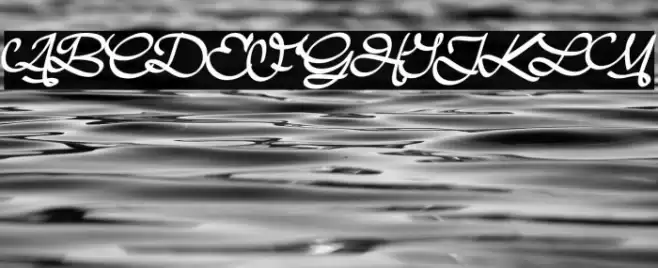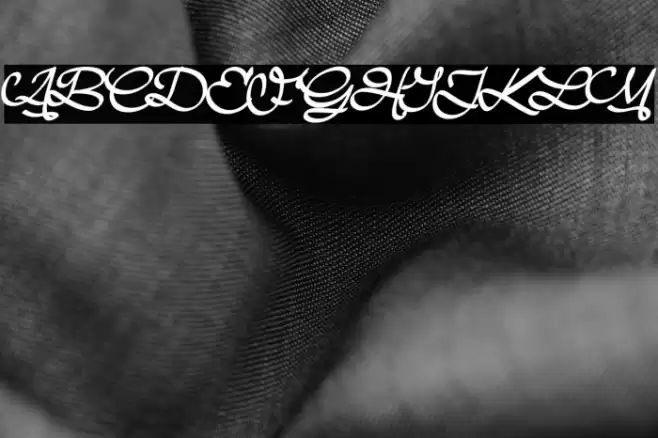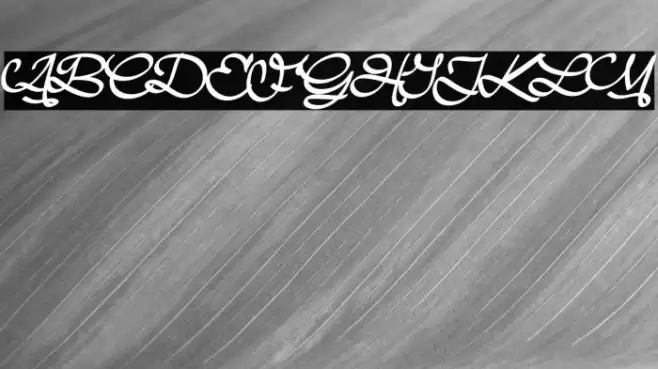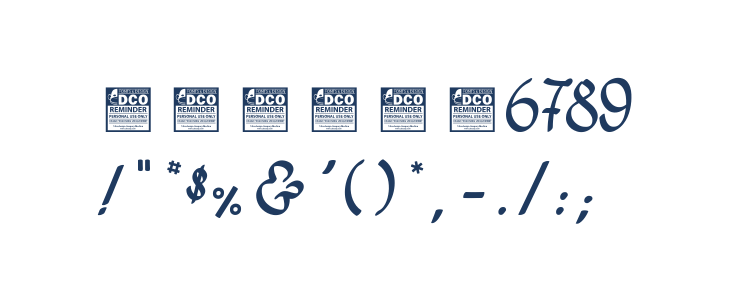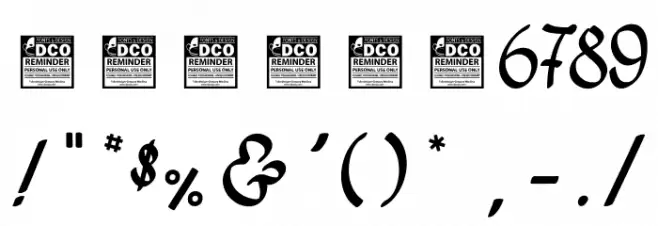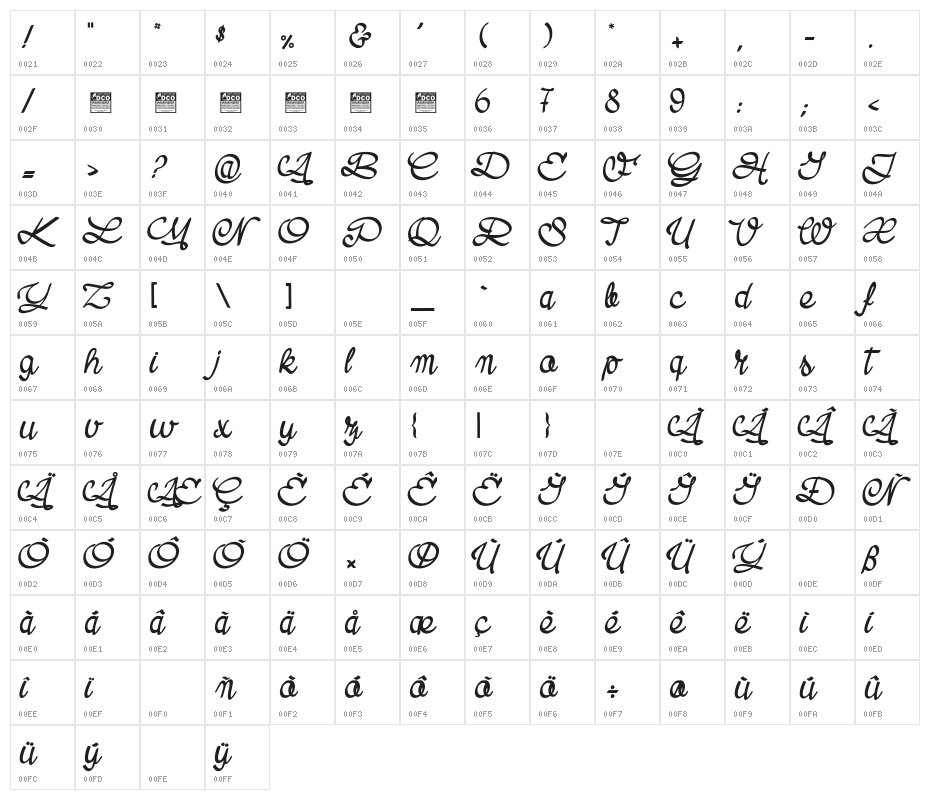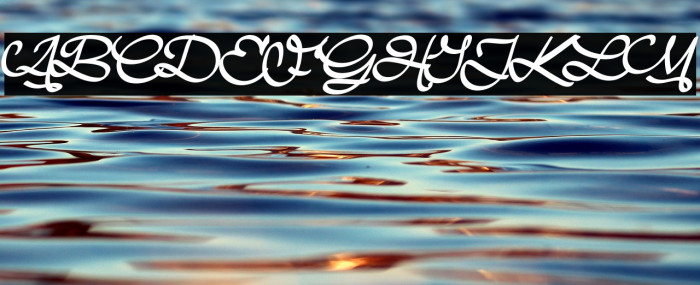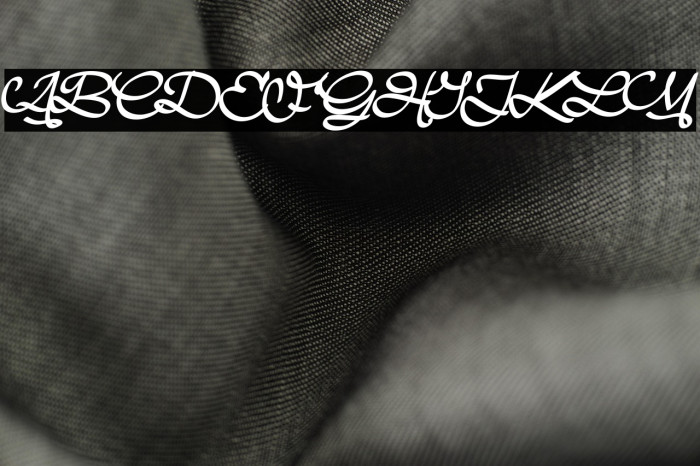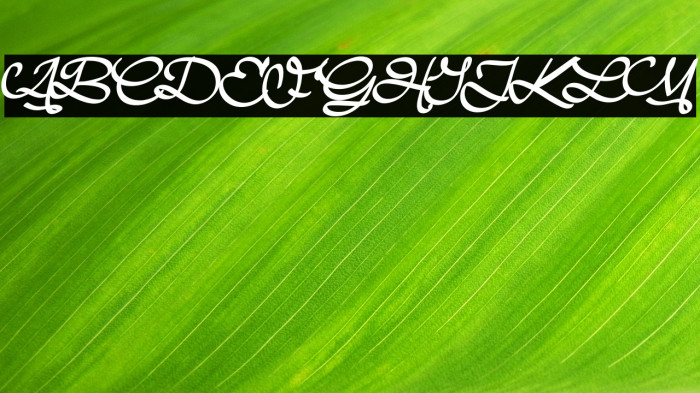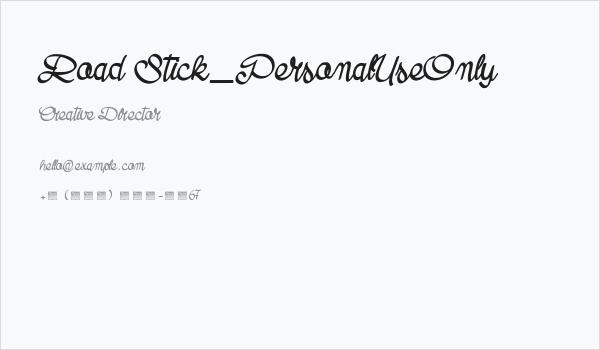
Road Stick_PersonalUseOnly Font
Road Stick_PersonalUseOnly Description
This font features a dynamic and flowing script style, characterized by its elegant and cursive letterforms. The uppercase letters exhibit a sophisticated flair with intricate loops and swashes, while the lowercase letters maintain a smooth and connected appearance. The numerals are consistent with the overall script style, offering a cohesive look. Special characters are designed with the same attention to detail, ensuring they blend seamlessly with the alphabet. The font's overall aesthetic is both stylish and versatile, making it suitable for a variety of design applications.
A dynamic and elegant script font with flowing, cursive letterforms from Uncategorized fonts.
- Font: Road Stick_PersonalUseOnly
- Proposed Projects: Ideal for wedding invitations, greeting cards, branding, and logo design.
- Overall Style: Elegant
- Use Case: Logos, Invitations, Decorative text